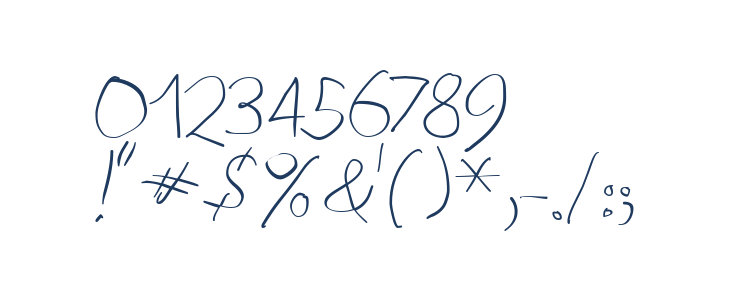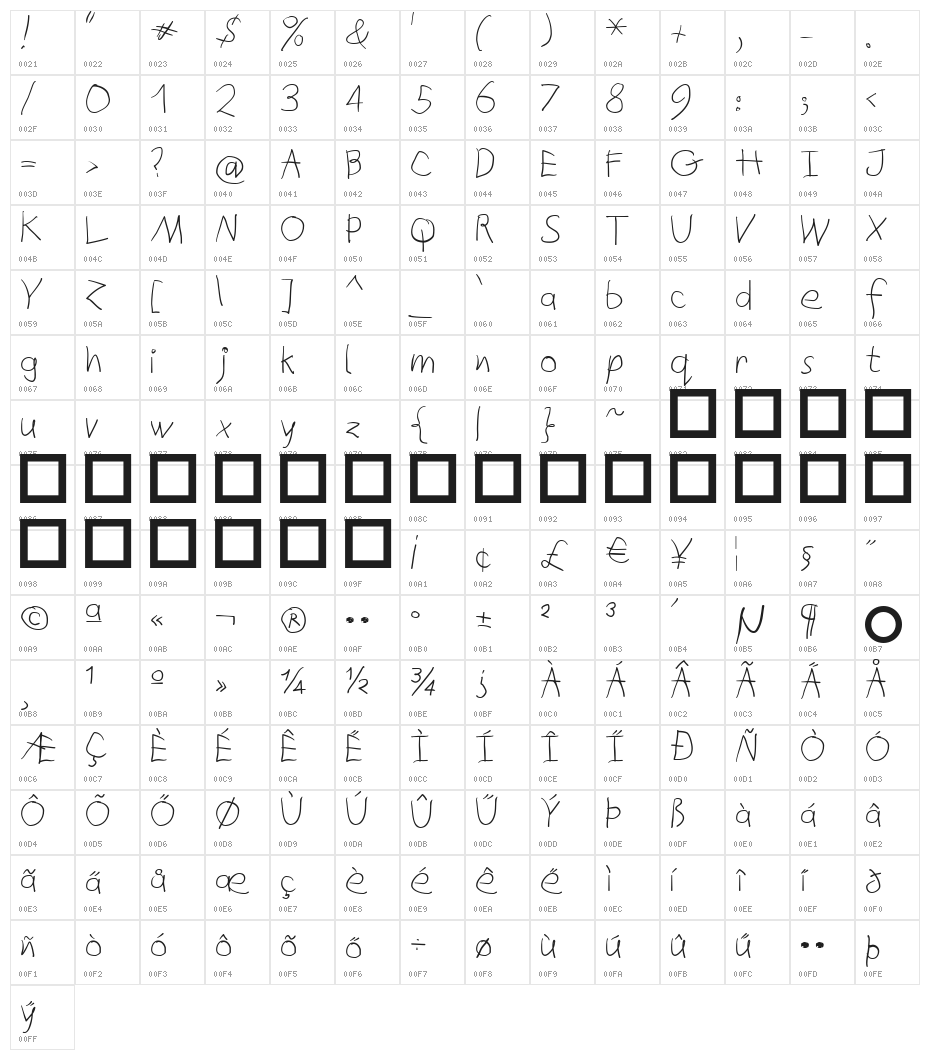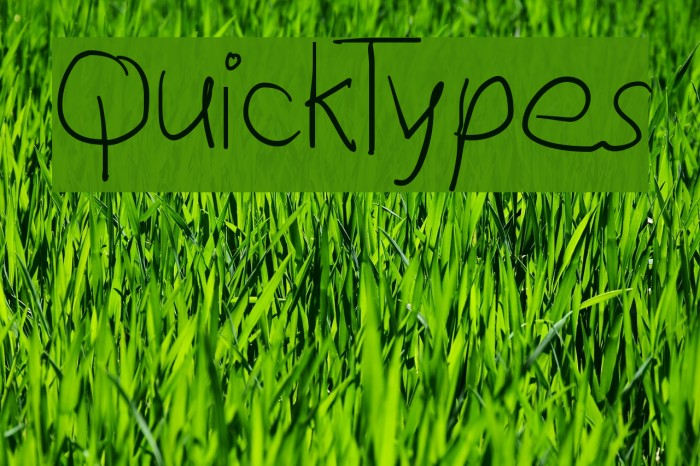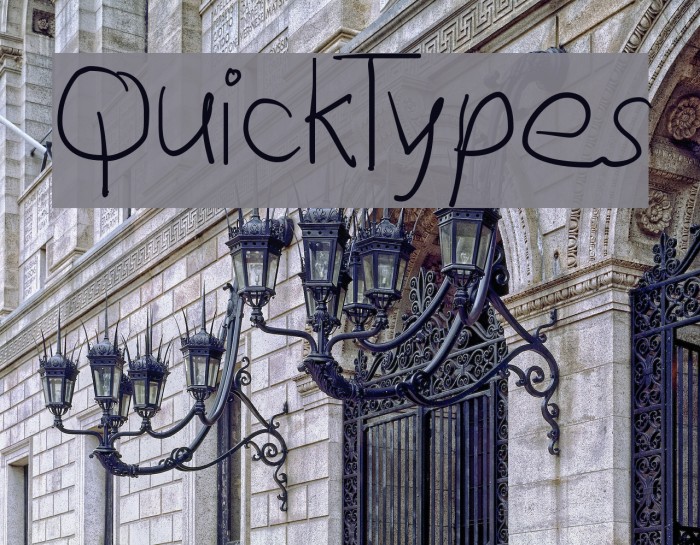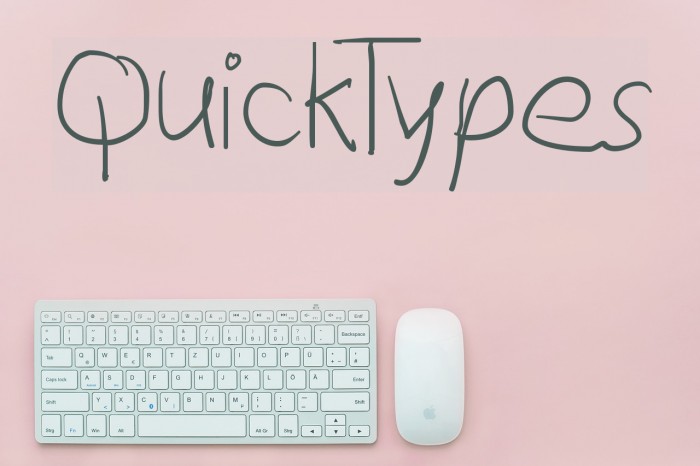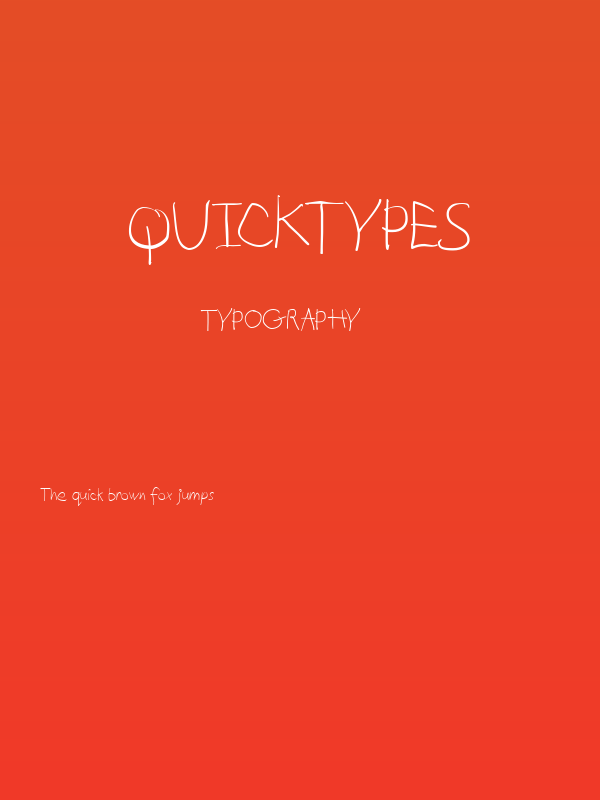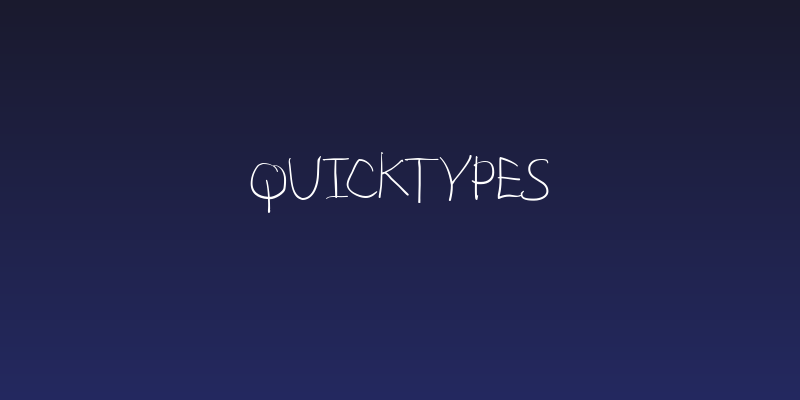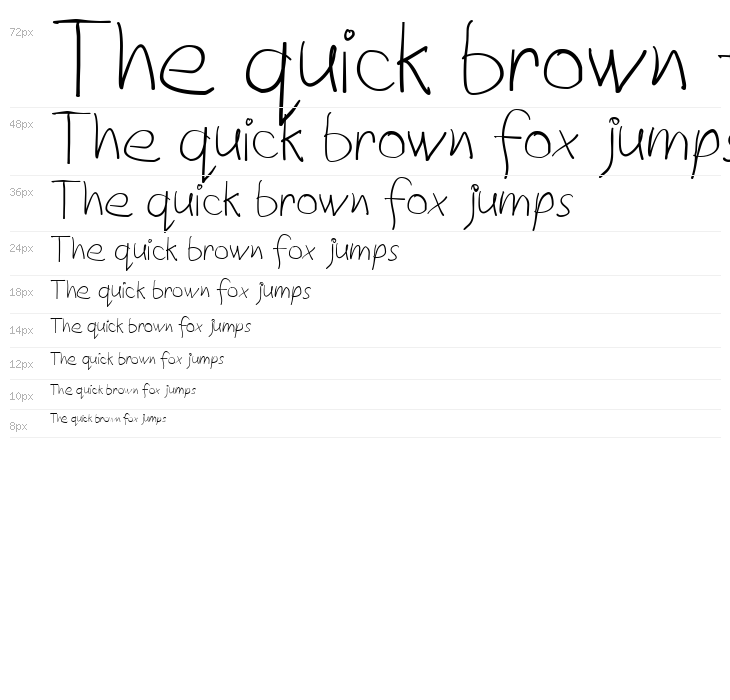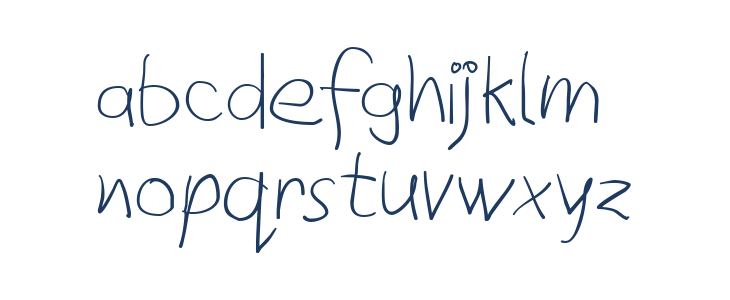
QuickTypes Font
QuickTypes Description
This font features a playful and casual handwritten style, characterized by its irregular and slightly uneven strokes that mimic the natural flow of handwriting. The letters are tall and narrow, with a slight slant that adds to the informal and relaxed feel. The uppercase letters are distinct and easily readable, while the lowercase letters maintain a consistent style with rounded edges and a smooth flow. The numerals are clear and match the overall aesthetic, making them suitable for various uses. Special characters are included, maintaining the same playful style, which enhances the font's versatility.
| Width | Condensed |
| Overall Style | Casual |
| Use Case | Headlines, Creative projects, Personal branding |
| Proposed Projects | Ideal for greeting cards, invitations, personal branding, and creative projects that require a friendly and approachable feel. |